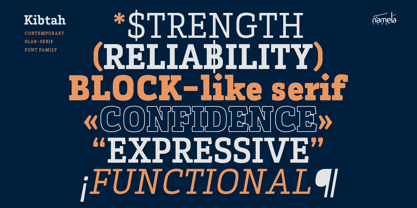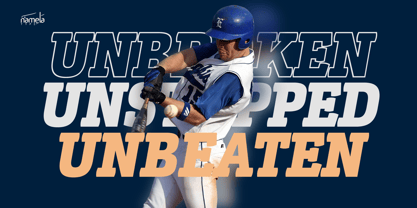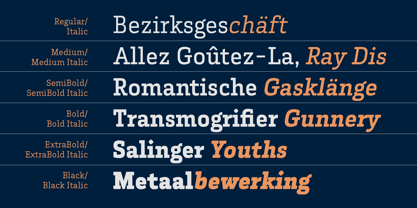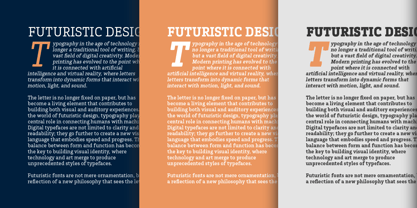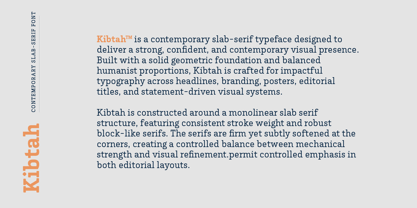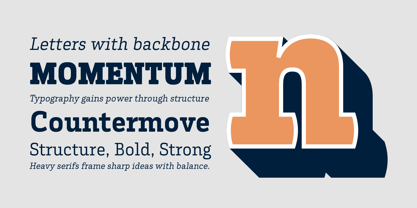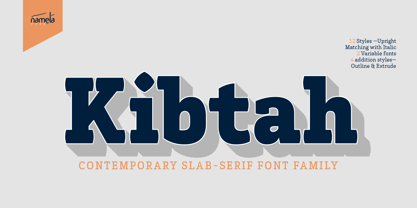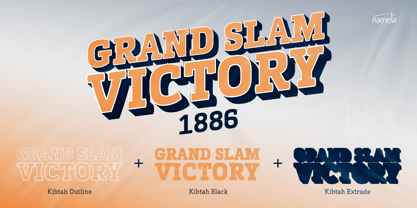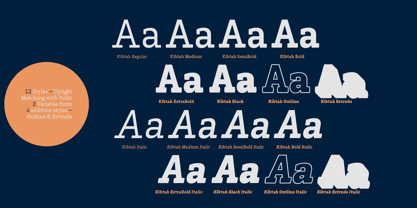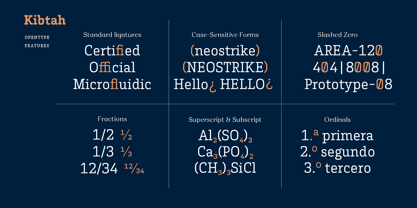
Kibtah
by NamelaType
The Kibtah Font Family was designed by Nur Syamsi, Bustanul Arifin and published by NamelaType. Kibtah contains 16 styles and family package options. More about this family
Kibtah is a contemporary slab-serif typeface designed to deliver a strong, confident, and contemporary visual presence. Built with a solid geometric foundation and balanced humanist proportions, Kibtah is crafted for impactful typography across headlines, branding, posters, editorial titles, and statement-driven visual systems. Kibtah is constructed around a monolinear slab serif structure, featuring consistent stroke weight and robust block-like serifs. The serifs are firm yet subtly softened at the corners, creating a controlled balance between mechanical strength and visual refinement. Kibtah is developed as a versatile type family, offering extensive stylistic flexibility for creative exploration. 12 Weight Styles (upright and Italic) Raging from Regular to Black, 2 Variable Fonts, 4 Additional Display Styles (including Italic Style): Outline & Extrude / Shadow; Specially designed for expressive and layered typography.
Designers: Nur Syamsi, Bustanul Arifin
Foundry: NamelaType
A type foundry based in Magelang Indonesia, operated by Nur Syamsi and Bustanul Arifin. Fascinated by the art and cultural expression inherent in typography, with a particular focus on the integration and harmonization of Latin and Arabic fonts. Dedicated to exploring how these distinct yet complementary writing systems can interact beautifully in design, merging their visual characteristics while respecting the nuances of each script.